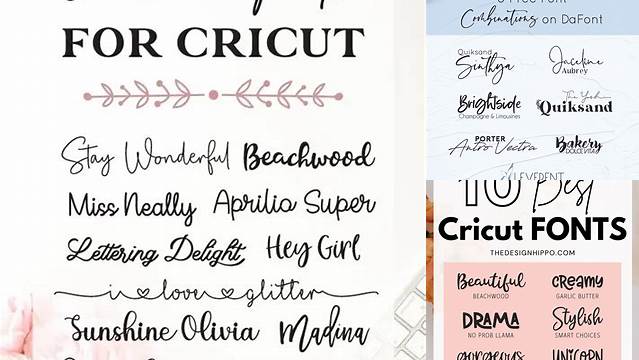
Top Cursive Fonts For Cricut & DaFont: Your Ultimate Guide
Hey everyone! If you're a Cricut enthusiast like me, you know the power of a good font. And when it comes to adding that extra touch of elegance and personality to your projects, cursive fonts are the absolute bees knees. They're perfect for everything from personalized gifts and home decor to wedding invitations and custom apparel. But with so many options out there, finding the best cursive fonts for Cricut and DaFont can feel a little overwhelming, right? That's where this guide comes in! We're diving deep into the world of beautiful, flowing scripts, and I'm sharing my top picks, tips, and tricks to help you create stunning Cricut projects. Whether you're a seasoned crafter or just starting out, get ready to elevate your designs with these amazing fonts. Let's get started, guys!
1. Unveiling the Beauty: What Makes a Cursive Font Cricut-Ready?
So, before we jump into the fonts themselves, let's talk about what makes a cursive font Cricut-ready. Not all fonts are created equal, especially when it comes to cutting machines. You want a font that will not only look beautiful on your screen but also cut cleanly and efficiently. Several factors contribute to this:
- Line Thickness: Fonts with very thin lines can be tricky for the Cricut to cut, as the blade might tear the material. Look for fonts with a slightly thicker stroke weight to ensure a clean cut. This is super important, because you want the lines to be defined. Think of it like this: if the lines are too delicate, the Cricut's blade might just glide right over them, leaving you with a frustrating mess. Thicker lines provide the blade with something solid to work with.
- Connectivity: Cursive fonts are all about those flowing connections between letters. But if these connections are too intricate or have sharp angles, it can cause issues. The Cricut blade might get caught or tear the material. Look for fonts with smooth, flowing connections that are easy for the machine to follow. Some fonts have built-in features that automatically connect the letters for you; this is a huge time-saver and ensures that your words come out perfectly connected. If not, don't worry; we'll discuss how to weld letters later on.
- Kerning: Kerning refers to the spacing between letters. Some fonts have kerning issues where letters are too close together or too far apart, which can make the text look messy or difficult to read. Make sure the font you choose has good kerning or is easily adjustable in your design software (like Cricut Design Space). Good kerning is a must-have because it makes the whole phrase look professional and polished. Bad kerning will make your beautiful font look like a kindergarten project.
Keeping these factors in mind will help you choose cursive fonts that are not only visually appealing but also Cricut-friendly, leading to successful and beautiful projects every time. Choosing the right font is the foundation of a great design. You don't want to spend hours designing something only to have it look terrible at the end.
2. DaFont: Your Gateway to Cursive Font Paradise
Let's talk about DaFont. It's like a candy store for font lovers, and a total lifesaver for Cricut crafters! DaFont is a massive online library where you can find thousands of free fonts, including a fantastic selection of cursive styles. Here's why it's so great:
- Huge Selection: Seriously, the sheer volume of fonts on DaFont is mind-blowing. You can find cursive fonts with various styles, from elegant and classic to modern and playful. There's something for every project imaginable. Seriously, they have fonts for every mood, season, and occasion. You can easily spend hours browsing and finding the perfect one for your next project.
- Free to Download: Most fonts on DaFont are free for personal use, which means you can download them without spending a dime. This is awesome for beginners or anyone on a budget. Who doesn't love free stuff? It allows you to experiment with different styles and find what works best for you. Just be sure to check the licensing details if you plan to use the fonts for commercial purposes (more on that later).